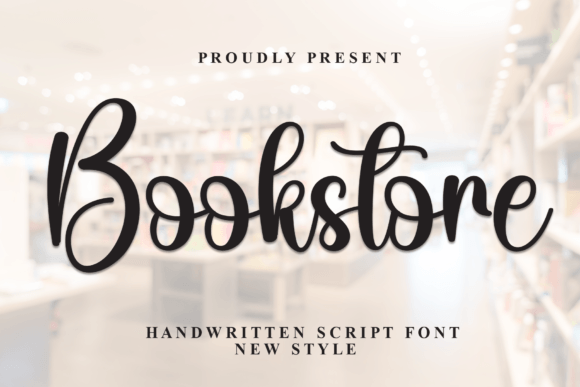
The Magic of Bookstore Font: Elevate Your Designs with Elegance
I’ll never forget the time I was working on a wedding invitation project, and my client asked for a font that would make their special day feel like a fairytale. I scoured the internet, tried countless fonts, but nothing seemed quite right. That was until I stumbled upon Bookstore Font. It’s a stylish and incredibly elegant script font that instantly elevated my design and exceeded my client’s expectations. In this article, I’ll share my experience with Bookstore Font, its features, and how to make the most of it in your designs.
An Honest Review of Bookstore Font
- ✨ Elegant and stylish: Bookstore Font adds a touch of sophistication to any design.
- ✅ Highly versatile: Perfect for wedding invitations, thank you cards, quotes, greeting cards, logos, business cards, and more.
- 💫 Handwritten touch: The font’s script style gives designs a personal and human feel.
- 🎨 Great for branding: Bookstore Font can help create a consistent and luxurious look for your brand.
While Bookstore Font is an excellent choice, there are a few things to keep in mind:
- ⚠️ Limited use in body text: Due to its script nature, Bookstore Font might not be the best choice for long blocks of text.
- 🤔 May require adjustment for kerning: As with any font, you might need to tweak kerning to achieve optimal results.
The Backstory of Bookstore Font
Bookstore Font was inspired by the classic novels and romantic tales of the past. Its creator aimed to craft a font that would evoke a sense of nostalgia and elegance, perfect for designs that require a touch of sophistication. The font’s beauty lies in its simplicity and ability to add a personal touch to any design.
Q: Is Bookstore Font suitable for body text?
A: While Bookstore Font is an excellent choice for headings and titles, it might not be the best option for long blocks of text due to its script nature.
Q: Does Bookstore Font support OpenType features?
A: Yes, Bookstore Font supports OpenType features, including ligatures, stylistic alternates, and glyphs.